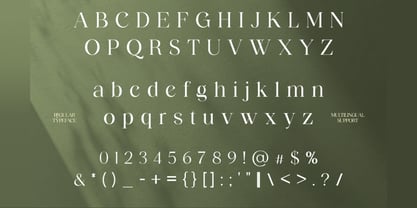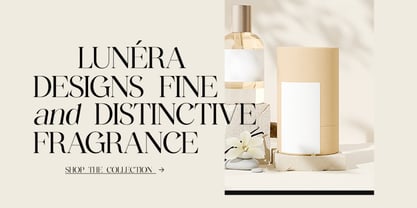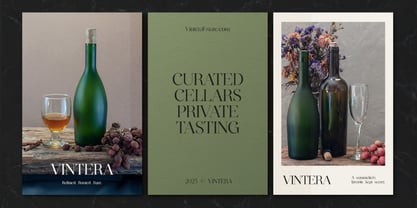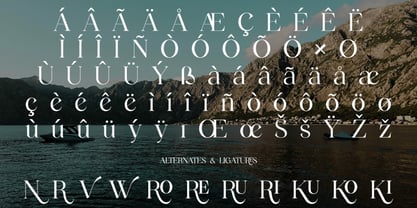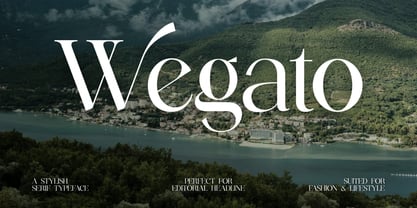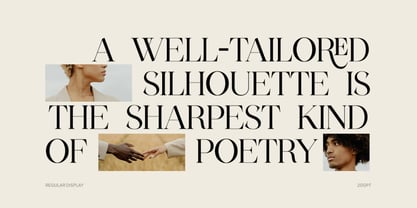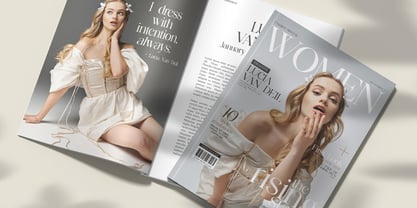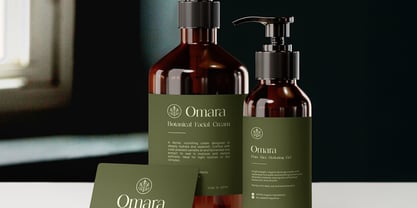
Wegato
by Brandearth
The Wegato Font Family was designed by Moch Rasjid Wiyono and published by Brandearth. Wegato contains 1 styles. More about this family
Wegato is a stylish modern serif typeface crafted for elegant editorial presence and refined brand storytelling. Designed with sharp high-contrast strokes, graceful curves, and distinctive serif detailing, Vegato blends timeless sophistication with contemporary clarity. Wegato is a stylish modern serif typeface crafted for elegant editorial presence and refined brand storytelling. Designed with sharp high-contrast strokes, graceful curves, and distinctive serif detailing, Vegato blends timeless sophistication with contemporary clarity.
Designers: Moch Rasjid Wiyono
Foundry: Brandearth